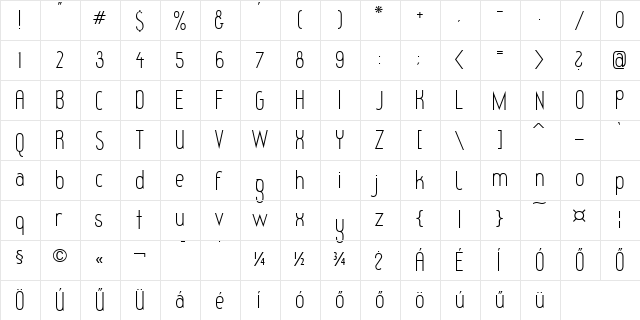
Redhead Goddess Regular
Design Context for Redhead Goddess Typeface
Redhead Goddess offers clean, dependable letterforms without strong stylistic allegiance, making it a practical choice for designers who need flexibility.